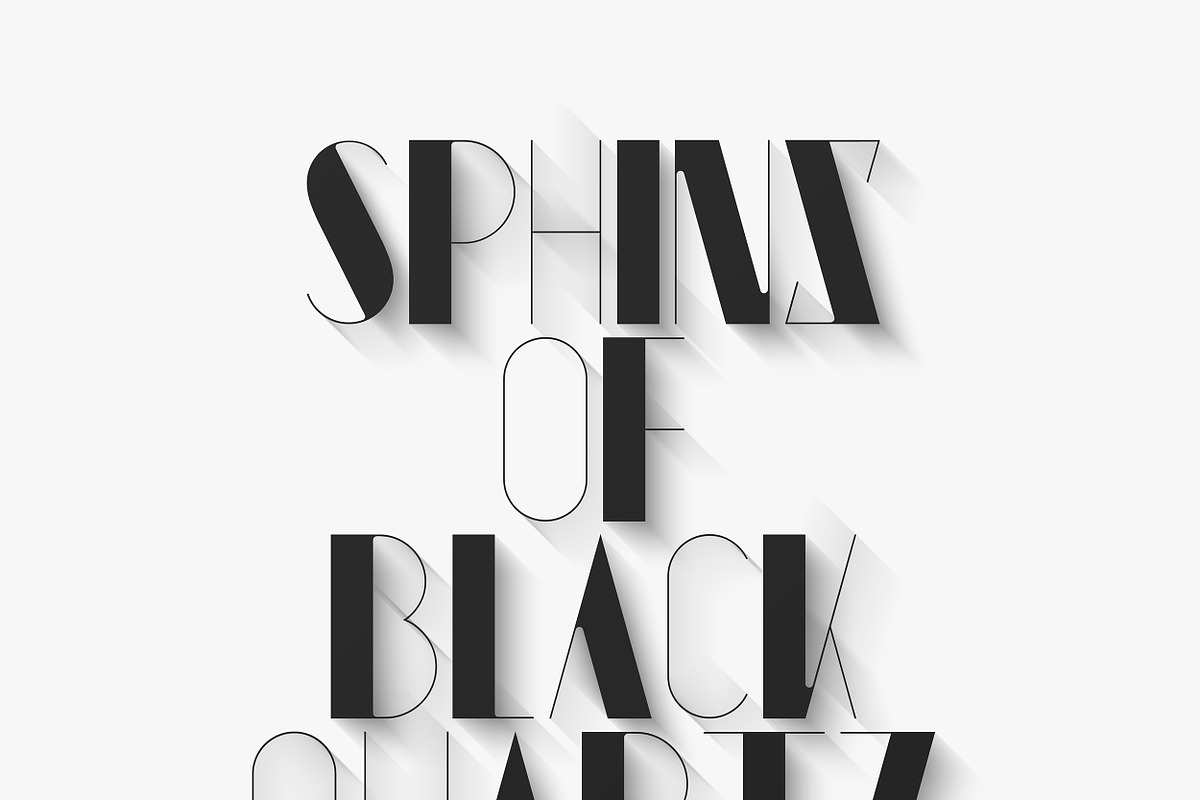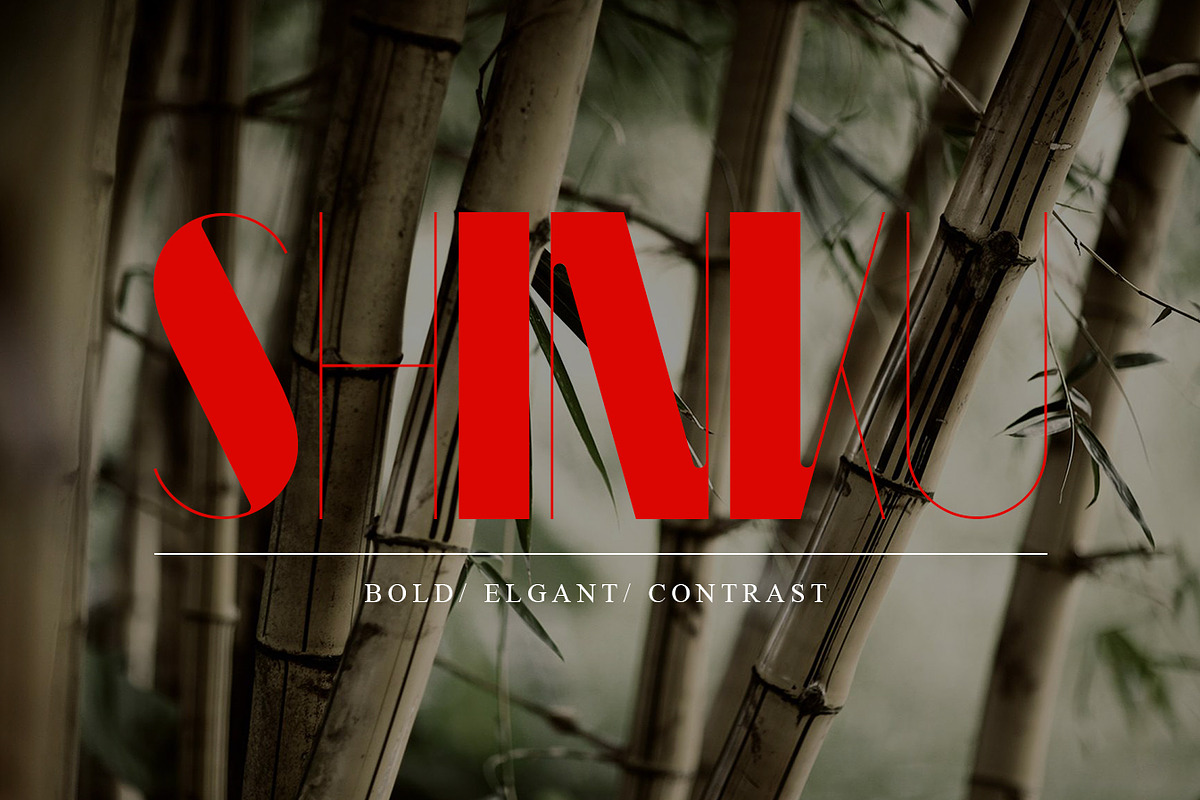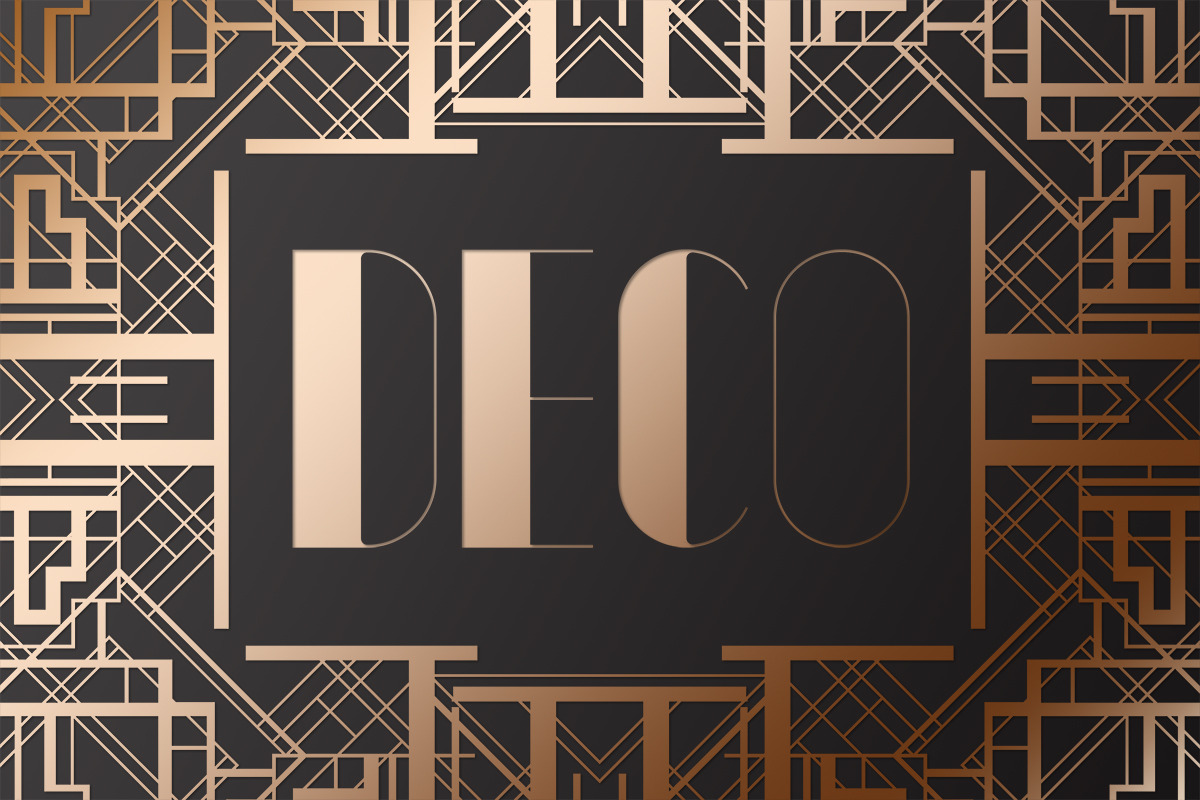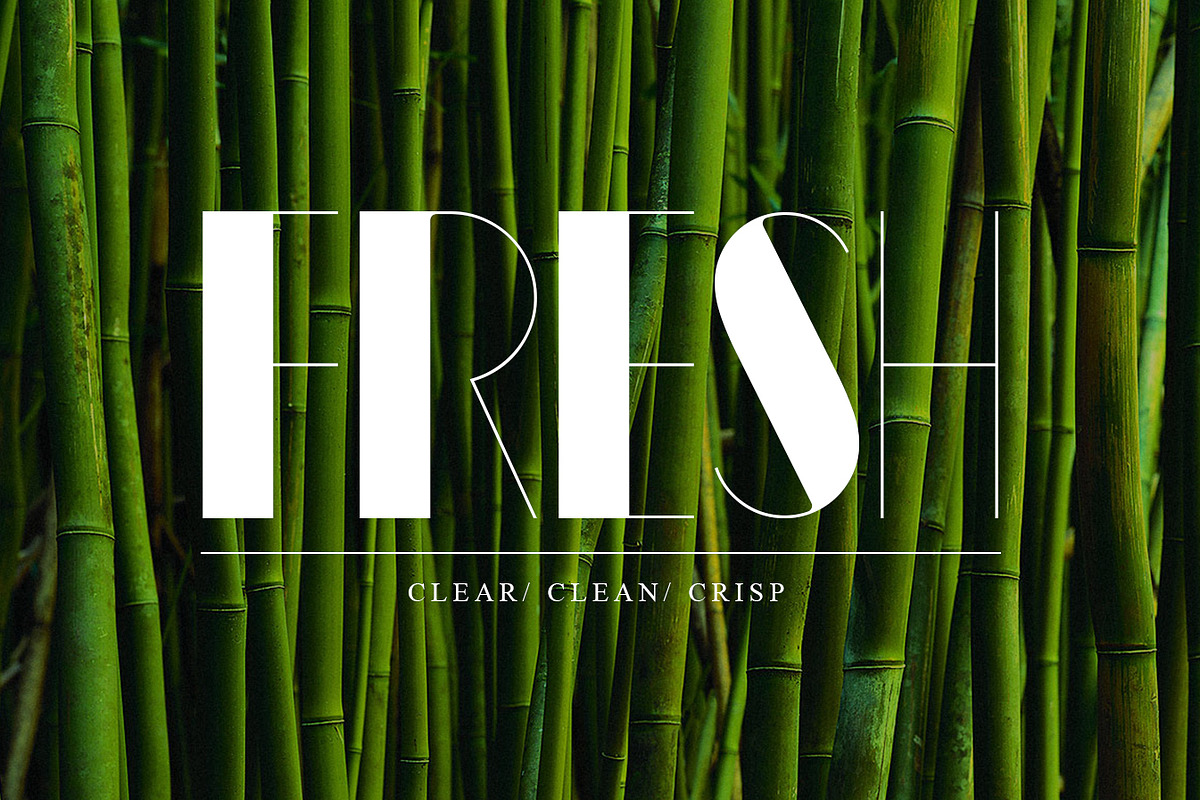
Kaiju II Font
Kaiju II Font by Anthony James is a font selected for branding, posters, packaging, typography.
- As a Display font, it is entirely Uppercase with Alternates for each letter, allowing the user to mix and match where they see fit.
Why Kaiju II Font is worth a look
Kaiju II Font by Anthony James fits naturally into Branding, posters, packaging, typography.